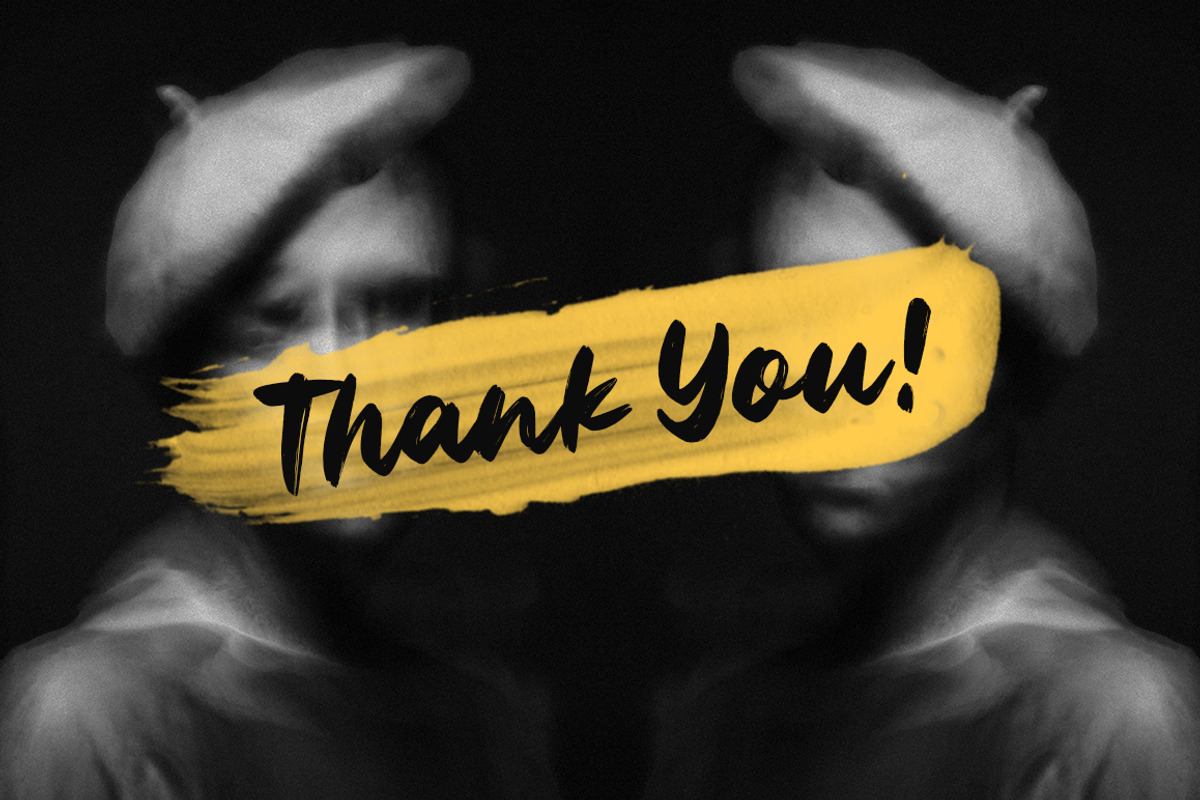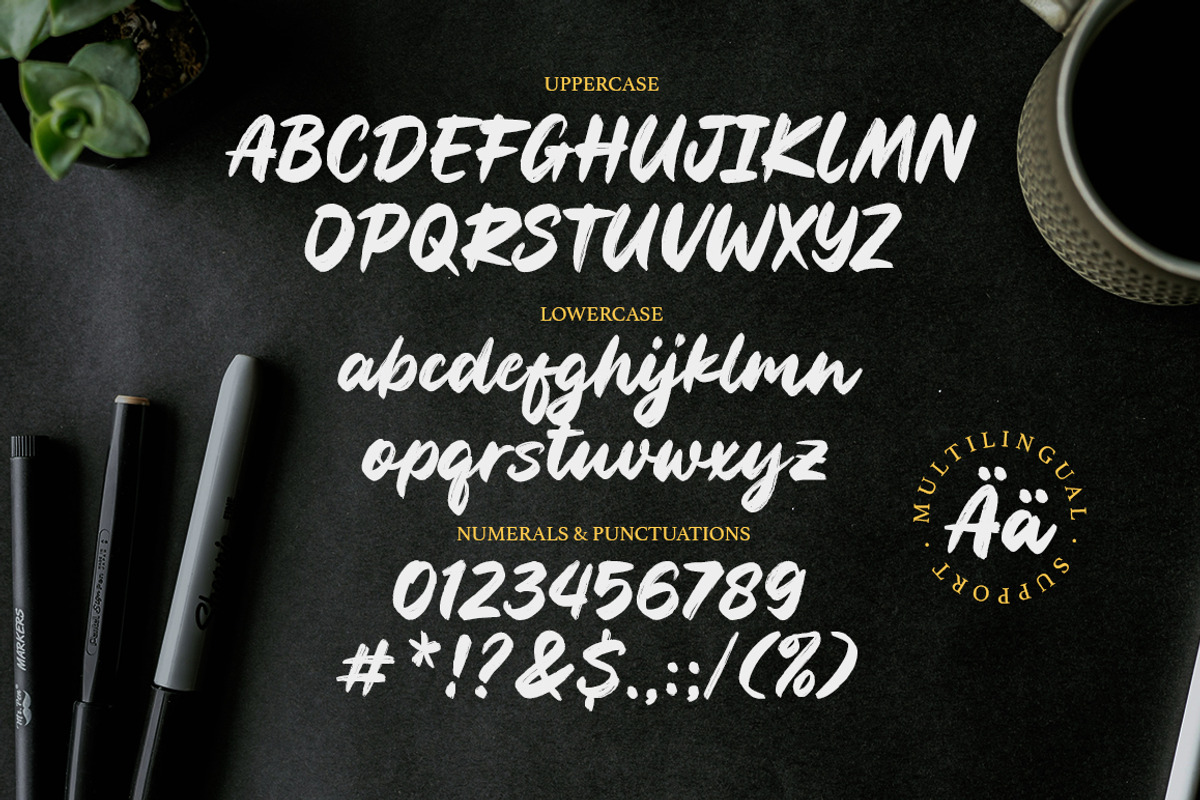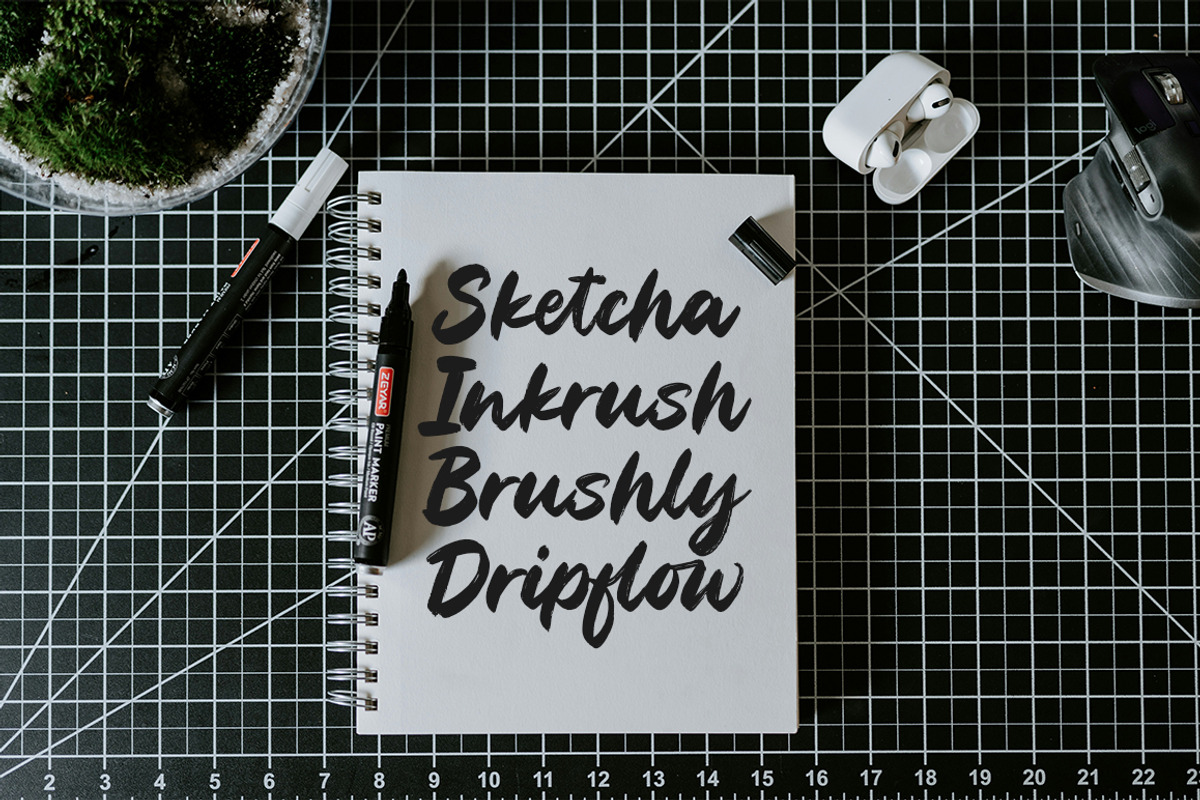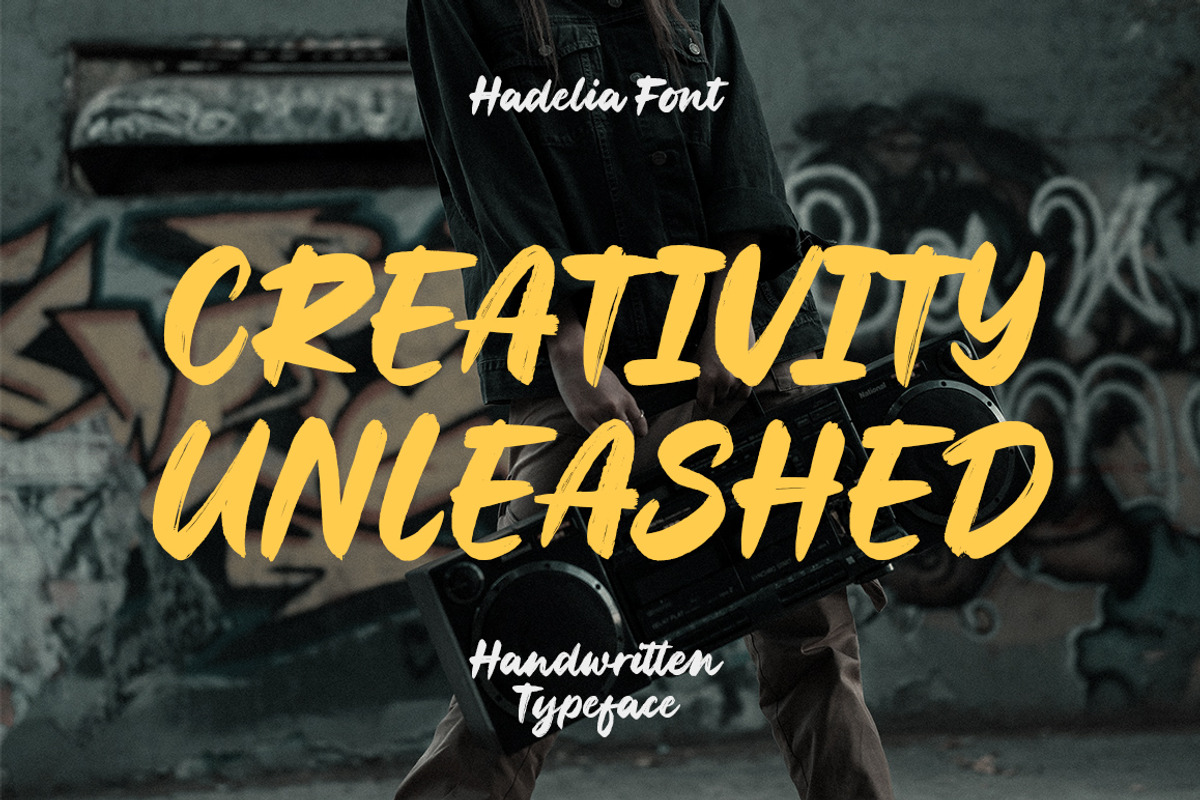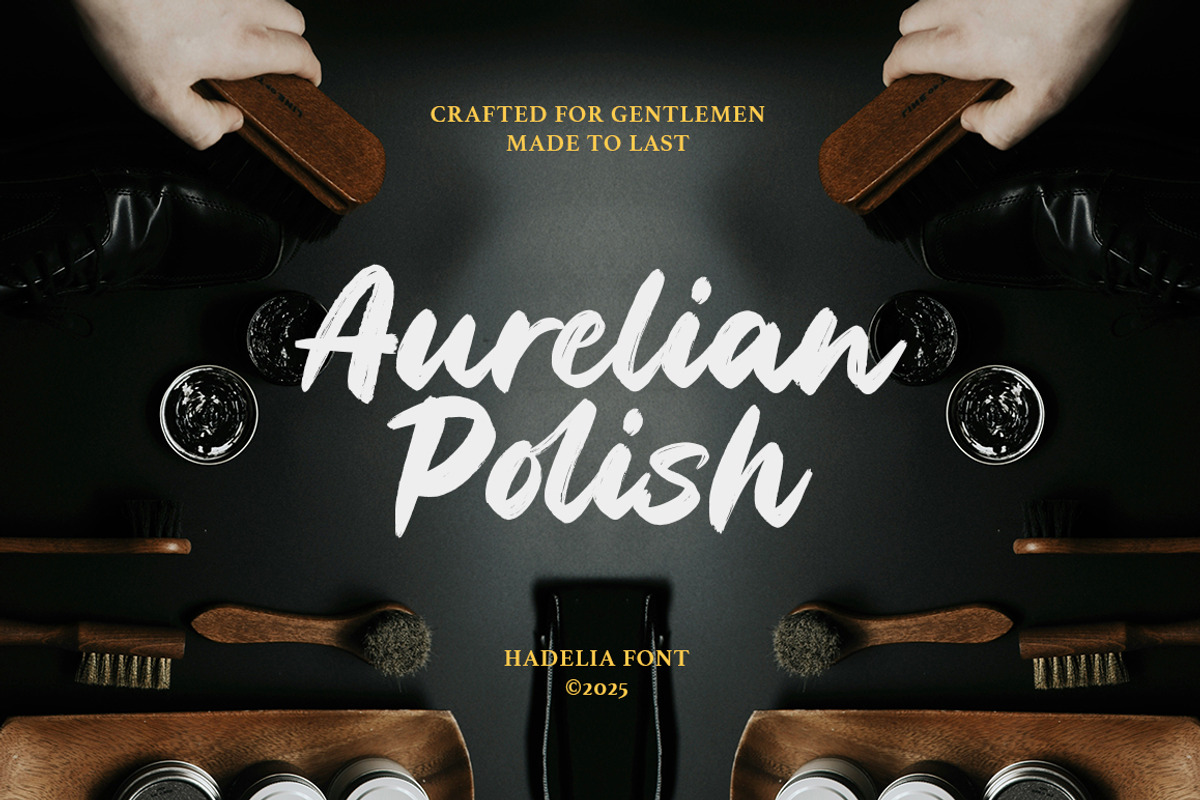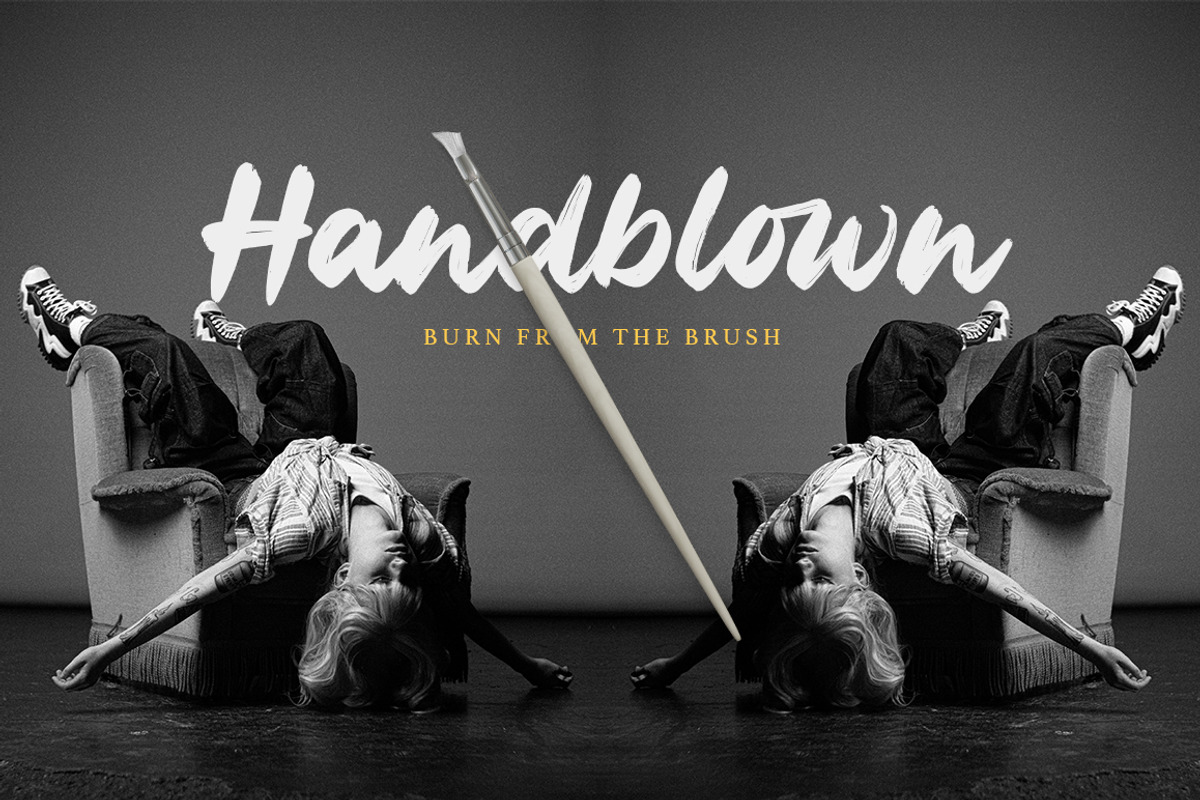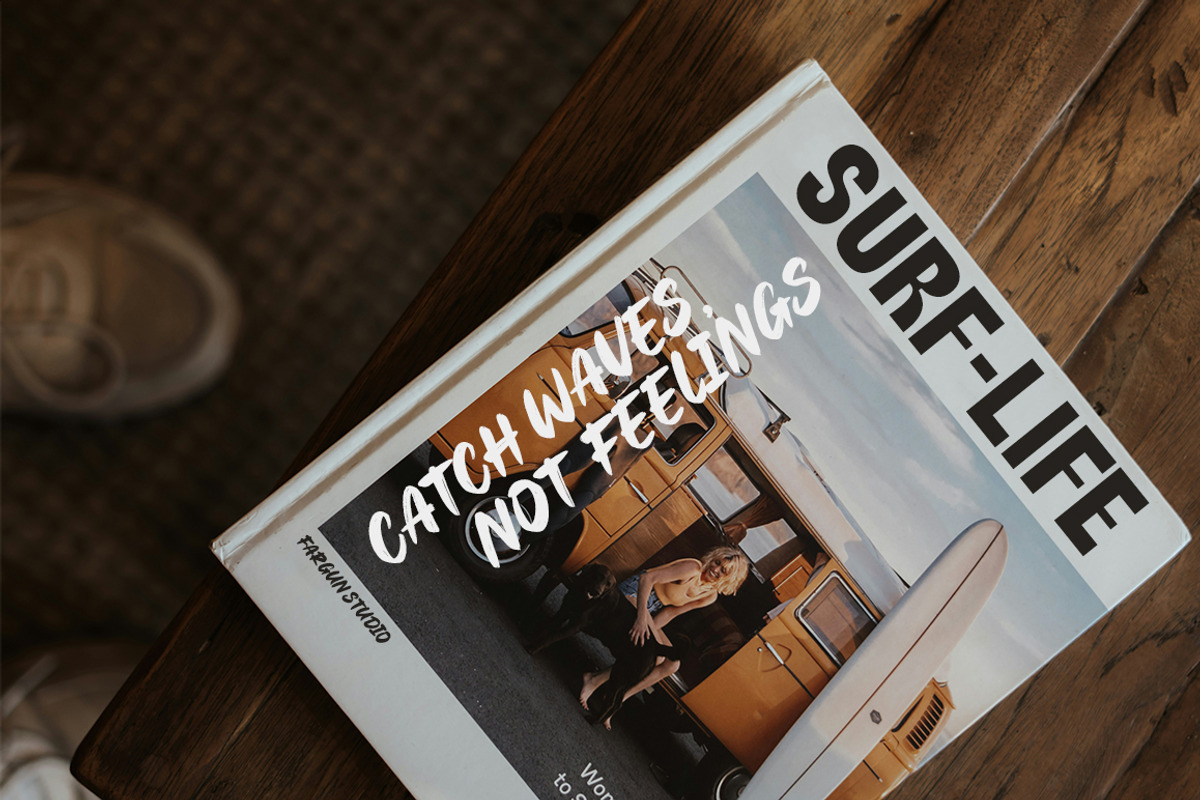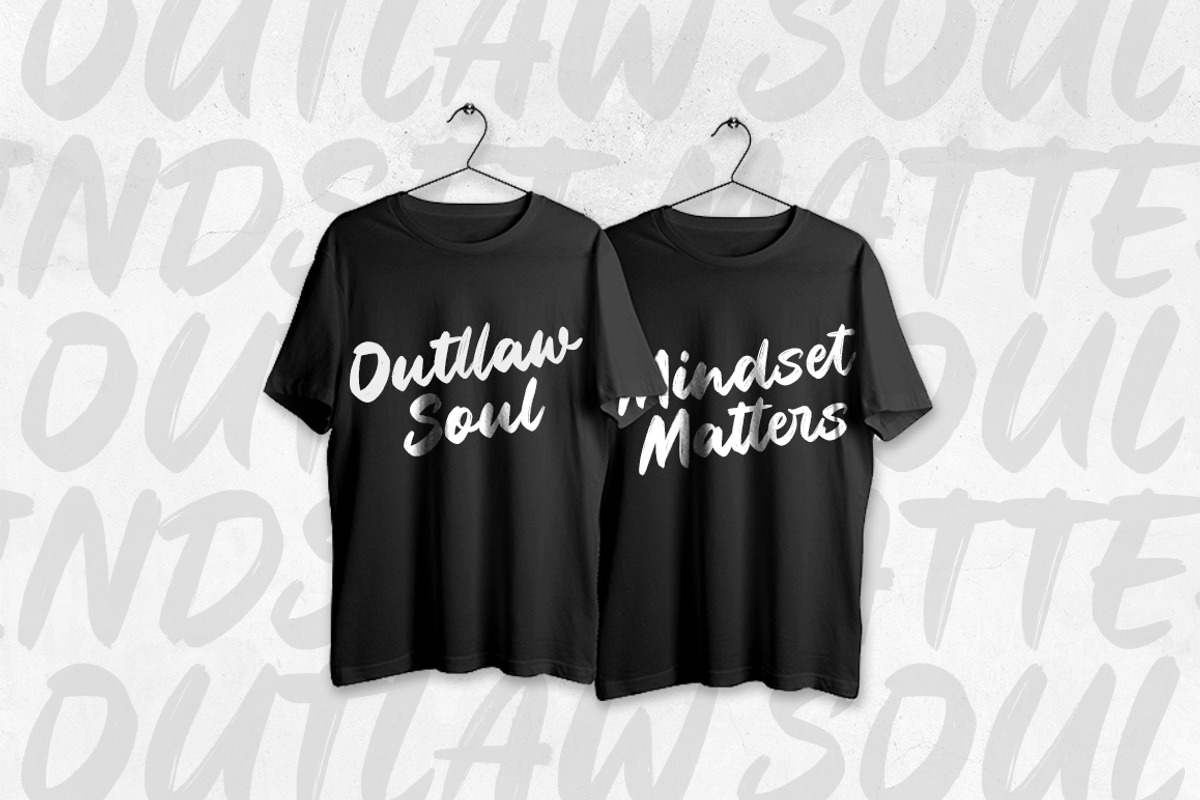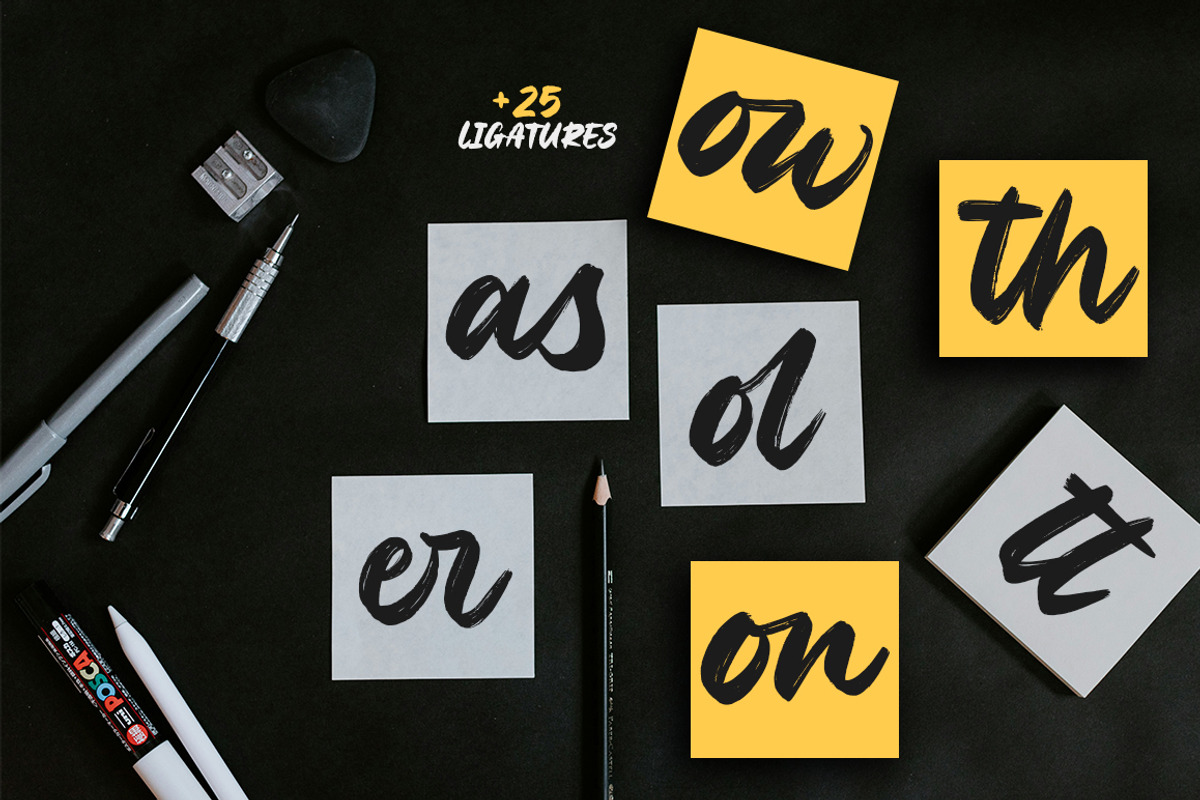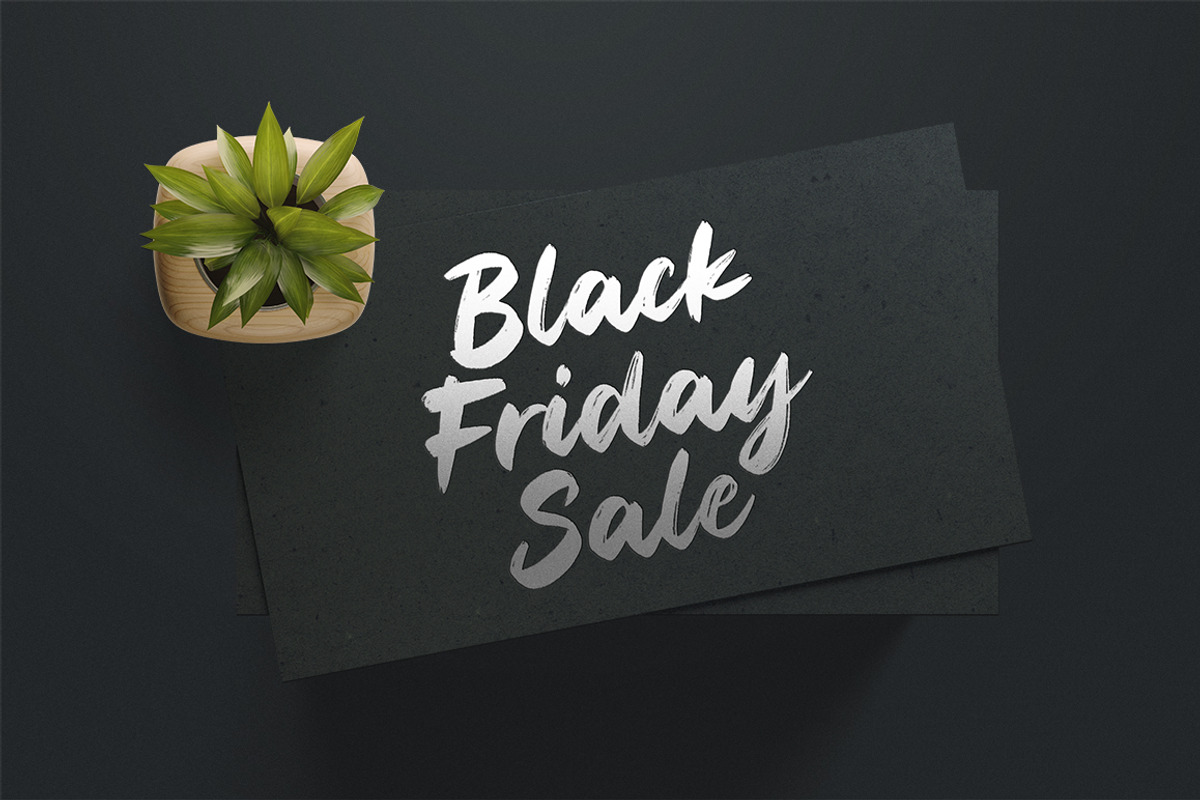
Hadelia Brush
Hadelia – Bold Brush Script
Hadelia is a bold and expressive brush script font that captures the beauty of hand-painted lettering. Crafted with authentic brush strokes, Hadelia brings a natural and dynamic feel to your creative projects. Whether you're working on branding, posters, social media graphics, or packaging designs, this font will give your work a confident, handcrafted look.
- Branding & Logos
- Packaging Design
- T-shirt & Apparel
- Greeting Cards
- Social Media Posts
- Inspirational Quotes
- Uppercase & Lowercase Letters
Let your creativity flow with Hadelia – a brush script that speaks with bold energy and artistic flair.